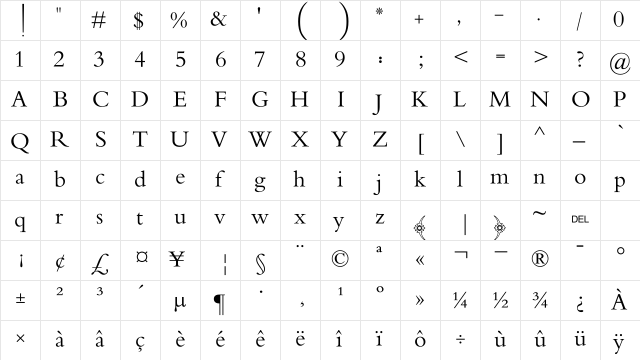
Motken AL-Rafidain Art Regular
Design Context for Motken AL-Rafidain Art Typeface
Motken AL-Rafidain Art is a composed and adaptable typeface that performs quietly and consistently across a wide range of design contexts.